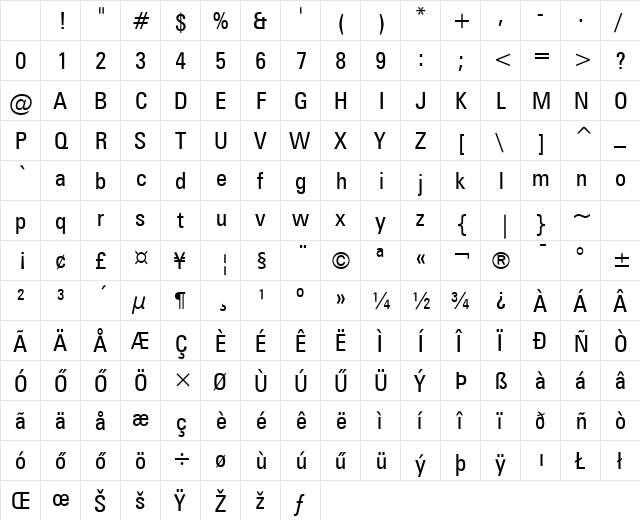
Complete Zurich-Condensed HU Normal glyph index. Displaying only characters natively supported by Zurich-Condensed HU Normal font.
Zurich-Condensed HU is a composed and adaptable typeface that performs quietly and consistently across a wide range of design contexts. Its narrow stance lets it pack a punch even in space-constrained designs.